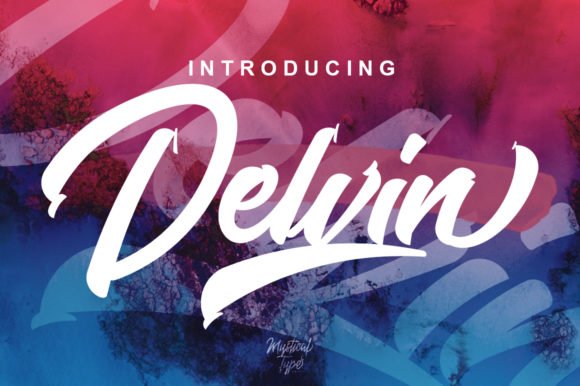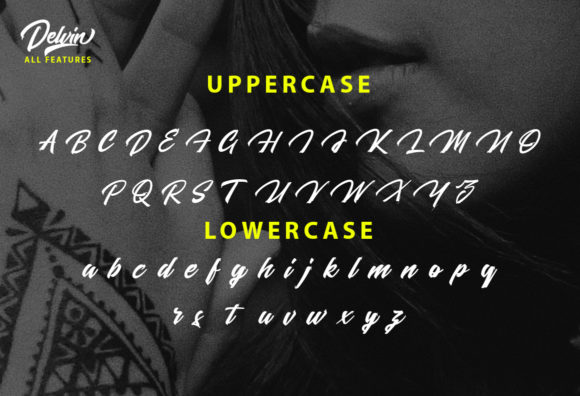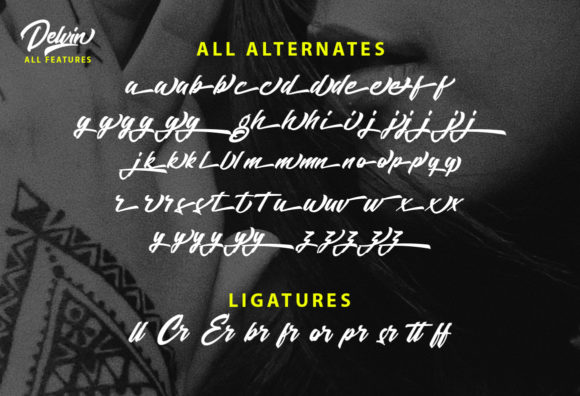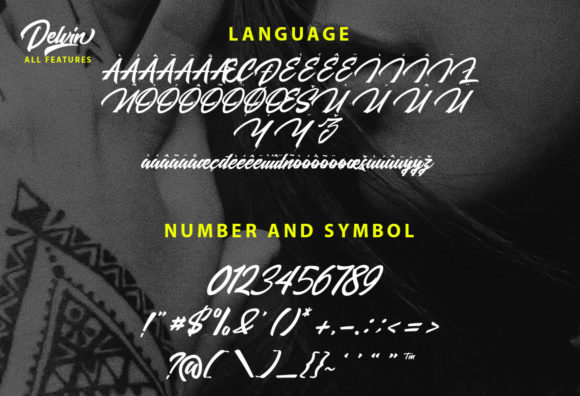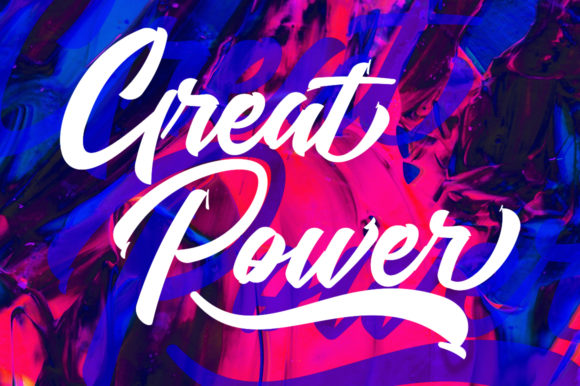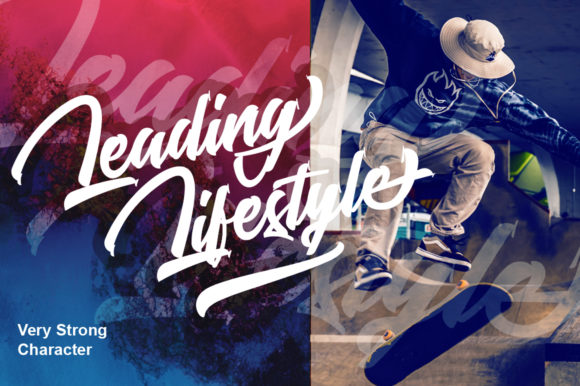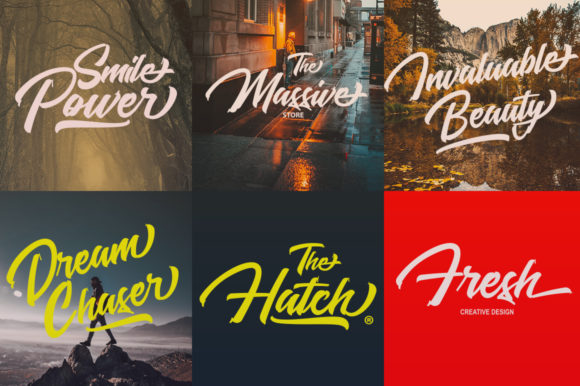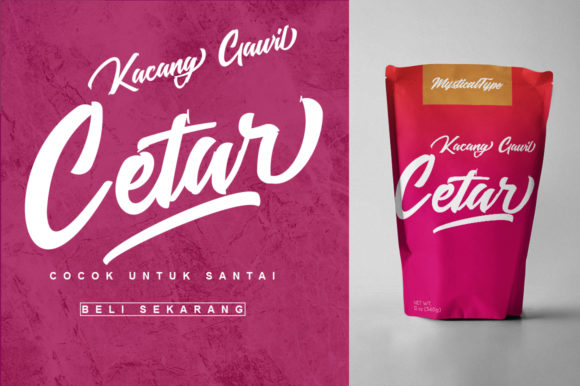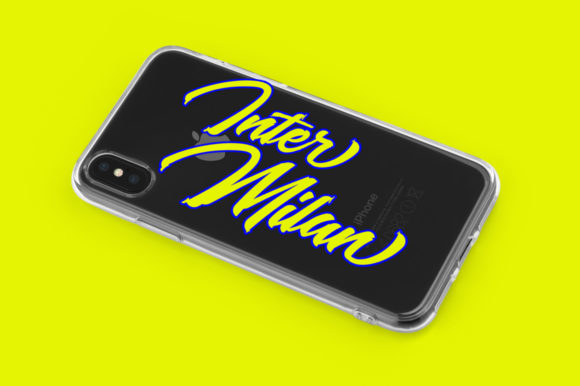
Delvin Font
About Delvin Font
Delvin is a bold handwritten font with a distinct urban touch. Get inspired by its authentic swashes, and turn any design project into a stand out!